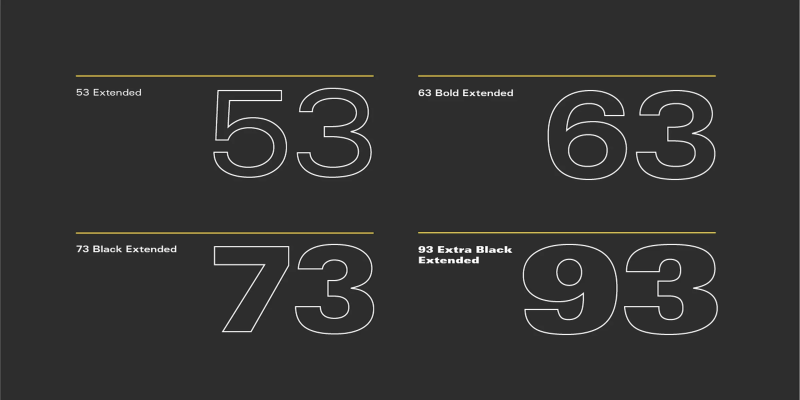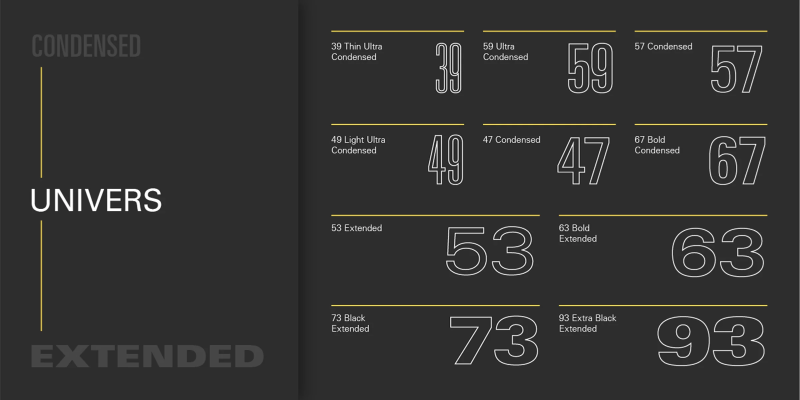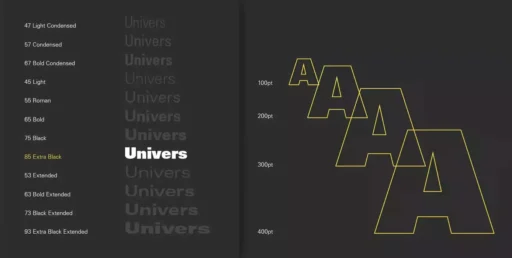
Univers Font
The Univers font, designed by Adrian Frutiger, the Swiss type designer, long ago in the early 1950s, charmed typography fanatics and professionals for its unparallel readability and applicable use in print and digital media formats. Thus, its advent became an essential milestone in the history of typography, with its creation being a direct consequence of the Frutiger dexterity in making fonts and of his having the same apprehension regarding the printers’ operations. This made him a key figure in type design, his development being a staple for several specialized areas. There are modifications such as Univers condensed, Univers bold condensed, and Univers light made sure to increase its compatibility with any design requirement; thus, Univers typeface is a necessary acquisition for any design toolbox.
With the extensive review below, we will discover the history and design guidelines the Univers font family is based on, compare this typeface with Helvetica to reveal its diverse features, and look at how this font is applied in diverse areas. Moreover, the progress of Univers font throughout the period hints at the same malleable feature of typeface over the dynamic world in general. Fans and pros who appreciate its qualities would find Univers font download options, including Univers fonts free Dafont and Univers font Adobe, plus comparing and contrasting this font’s function in digital and print contexts.
The typeface Univers by Adrian Frutiger and the printing house Deberny & Peignot, officially released in 1957, is of the utmost importance because of its various attributes. The Poynter family was the first to approve a complete typography with different weight and width features, making it one of the typefaces with the broadest application range. This aspect was underlined through its original marketing campaign, demonstrating the diversity of regard on a periodic table theme. As mentioned in the introduction, Univers was built in the 19th century in the context of German types. Works like Akzidenz-Grotesk served as crucial sources of inspiration, which defined Univers as a neo-grotesque sans-serif type
For Frutigra, Univers was a large family, an innovative idea. This vision implied at most minuscule two widths and weights. However, the design element should follow suit on all the variations. In this way, the said method highlighted Frutiger’s creative genius and set a new standard for typeface design, helping to shape how typefaces were conceived and utilized in the modern era.
As you study the distinctive letterforms and justification of both Univers and Helvetica, it becomes clear that they are two unique fonts and bright stars in the sky of typography. Here’s a closer look at their differences: Here’s a closer look at their differences:
By setting them up against each other, it becomes easier to appreciate that these two archetypical typefaces are dictating the aesthetics of a new design project, but how one person perceives them can be very different.
The Univers font’s journey from its conception to becoming one of the most venerated and highly used typefaces in the typography world can now be seen as a complete adventure as a result of this detailed and fascinating look into the history of this font. It does not only stem from its origin and design principles, as developed by Adrian Frutiger, but also from its far-reaching applications in branding corporate sectors, open signage, and others. This is great confirmation that Univers is an unsurpassable font with a high readability rate. Uni’s fundamentals represent a solid basis for modern typography as the technology makes progress, demanding from Uni’s existence a new gen of font to keep up with the latest technology and even expanding it to other languages and scripts.
The course of Univers typeface establishment, from the first concept till it’s becoming one of the most often used font styles in design, does not only signal the inventive ability of Adrian Frutiger but also expresses the capacity of the typeface to exceed civilizations and time constraints. The many varieties of Univers generates a wide range that extends the resources for the expression of creative minds, thus tests that Univers is more than a typeface, it becomes part of the visual language. To be able to narrate the tale of Univers is to show all the stages of progress in typeface design and one absorbing chief significance to our daily visual way of life.
Where Univers Font works best
Univers Font stays legible at small sizes, which makes it a strong choice for navigation, buttons and dashboards in web design and app interfaces.
Clean sans serifs like Univers Font are the default language of SaaS, fintech and product branding.
What is Univers Font good for?
Univers Font is a Sans Serif Fonts typeface tagged Bold, Condensed, Modern, Retro. It works well for headlines, logos, posters, social media graphics and branding projects that need a distinctive sans serif fonts look.